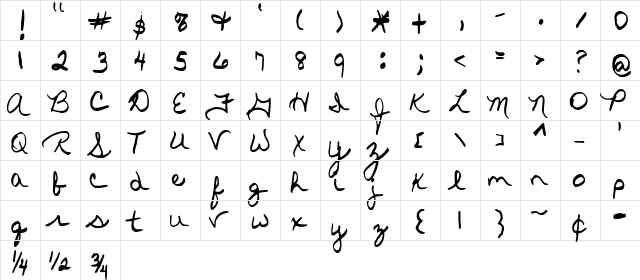
FG Alexandra Regular
| Foundry | Font Garden |
| Designer | Font Garden |
Design Context for FG Alexandra Typeface
FG Alexandra takes a measured approach to typography — its balanced proportions and neutral character make it a reliable workhorse for both digital and print work.